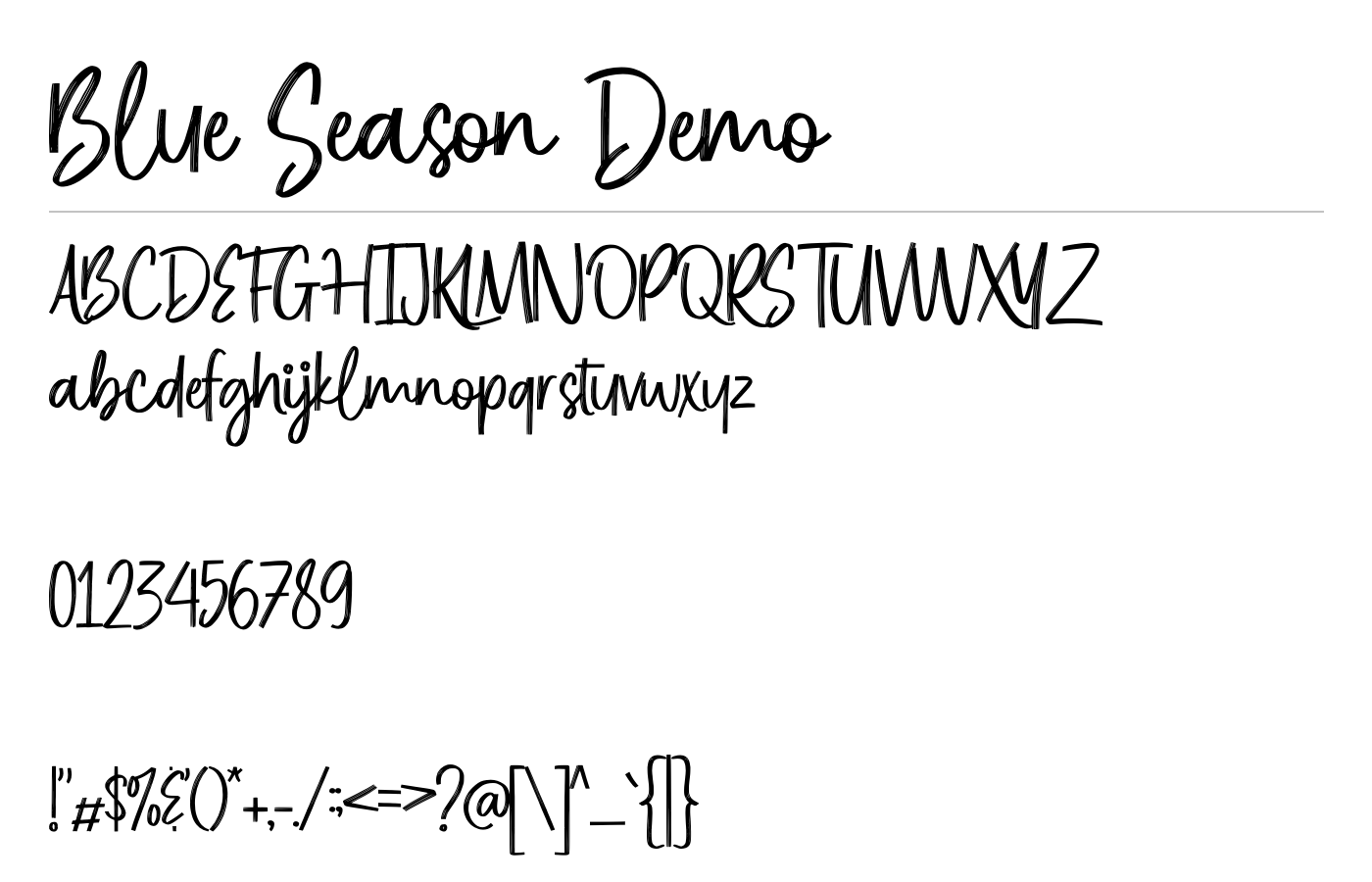
Blue Season Demo is a lively and casual handwritten script font featuring slender, slightly irregular strokes that create a playful and approachable feel. Its tall, narrow letterforms with a distinct hand-drawn texture work well for adding personality to creative projects, making it ideal for branding, invitations, and social media design where a youthful and friendly vibe is desired. This font’s energetic style shines in headlines and display uses, helping designs stand out with an informal yet stylish touch.
Blue Season Demo Font
About Blue Season Demo Font